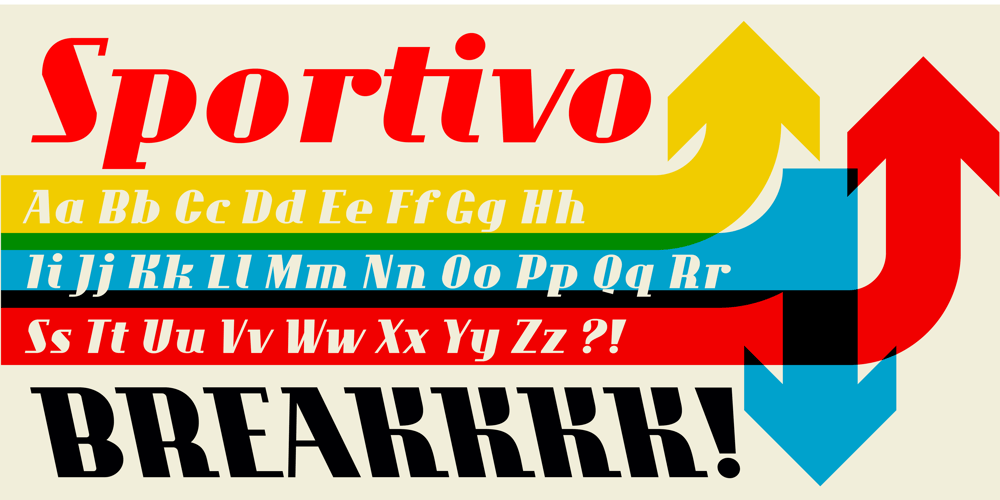
Sportivo Font Family was designed by Matteo Bologna and published by muccaTypo. Sportivo contains 5 styles and family package options. Sportivo is a 5-speed font that runs blazing fast. With a choice of 5 slants and a wealth of OpenType features, Sportivo is the ideal display font for titles that ask for a modernist-retro flair. With multiple alternates and special ligatures, Sportivo will take your headlines straight to the winners’ podium. The unique back-slanted design translates to Italic with three intermediate styles to electrify your layouts. Fast and furious, Sportivo is also equipped for victory at any Grand Prix thanks to its high-octane language support and turbo-charged OpenType features.